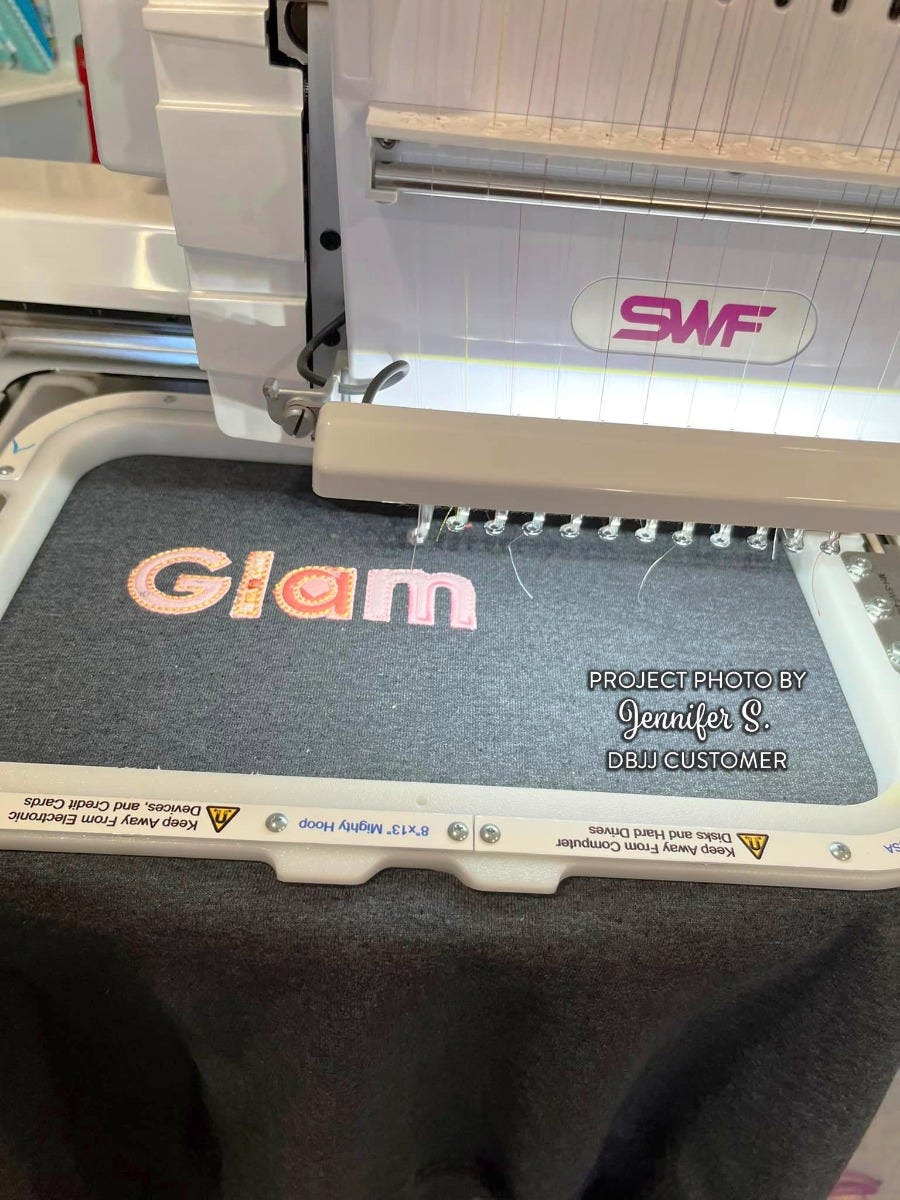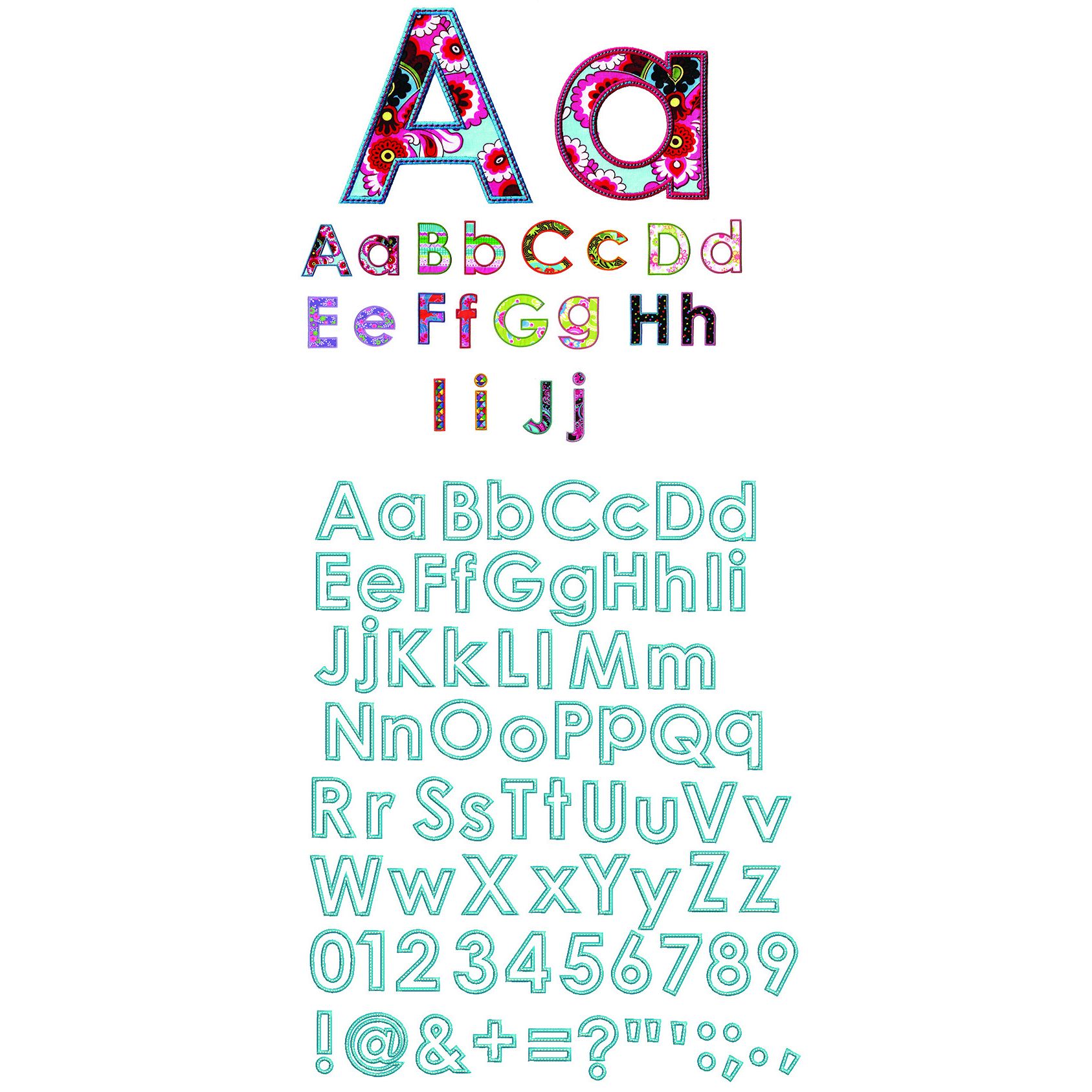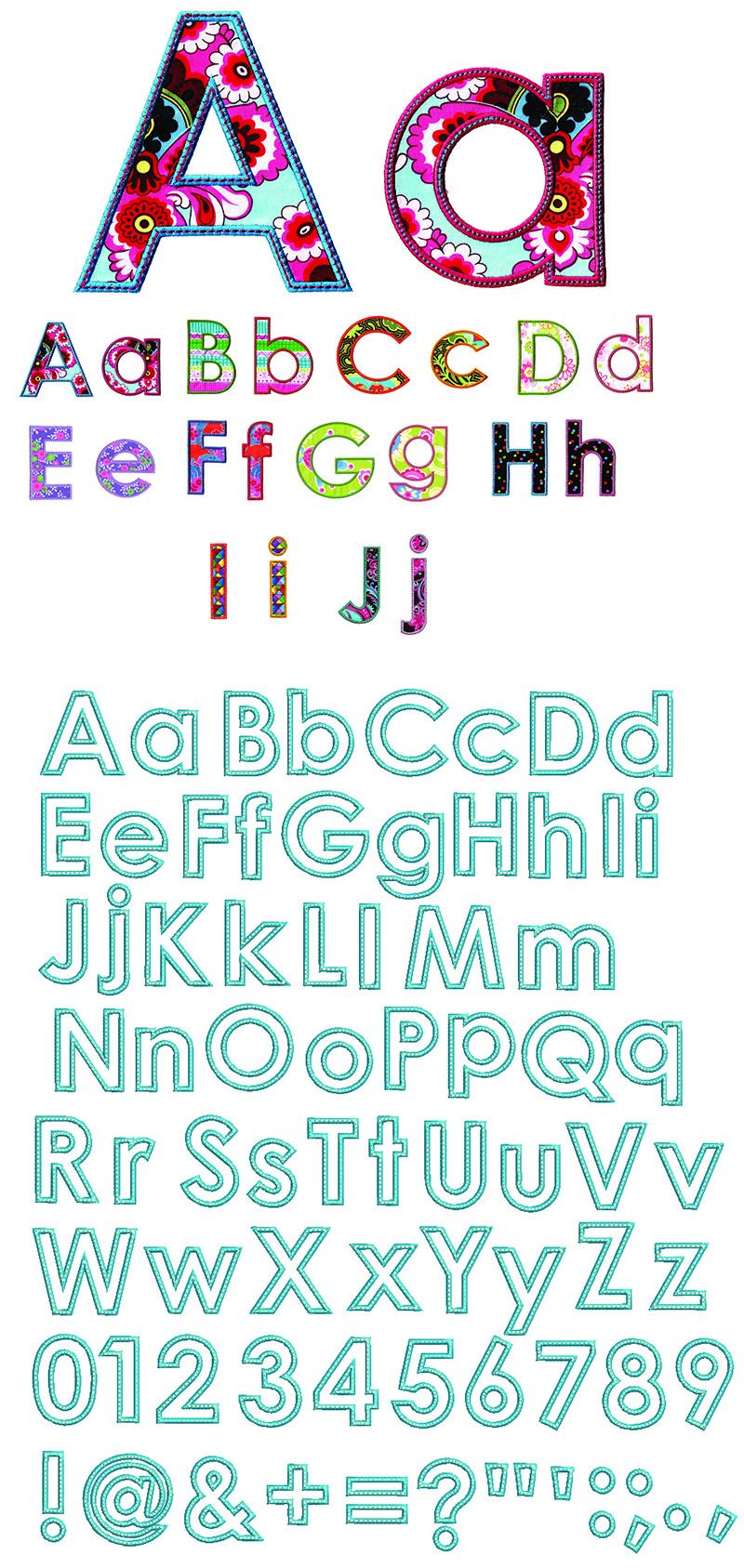
Here is an ever so sweet and simple classic block applique font. With six sizes included, included a coveted "mini" 1.5 inch size, this is sure to be one of the most versatile alphabets you'll use! We've also included a full set of numbers and characters.
The pretty bean top stitch gives it an elegant look. You can leave off the last step to omit that stitch if you so choose.